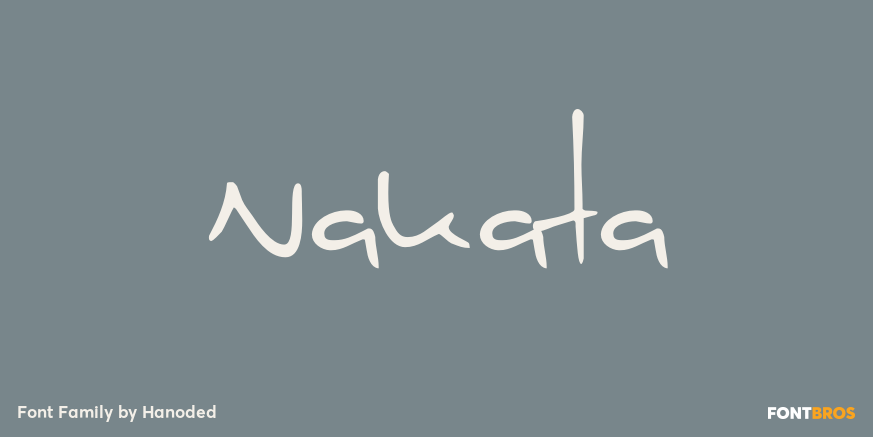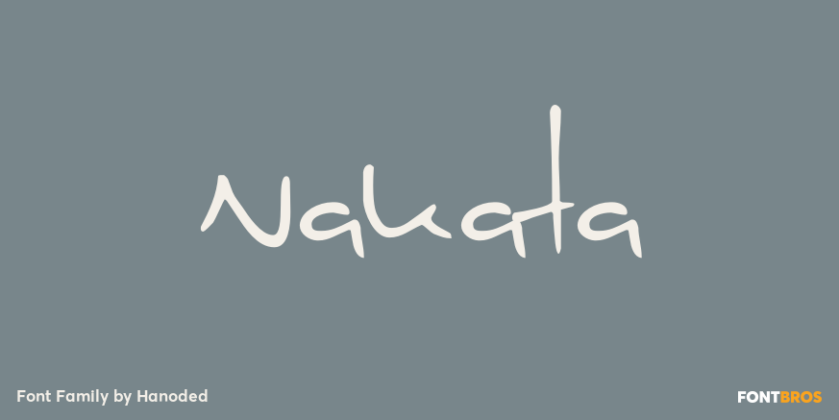
Nakata
About Nakata
Mr. Nakata is another one of my favorite Haruki Murakami characters. Nakata typeface is handwritten, sloppy and messy, but comes with intelligent features like alternates and ligatures, to make it look more like handwriting and less like a font. Of course,…